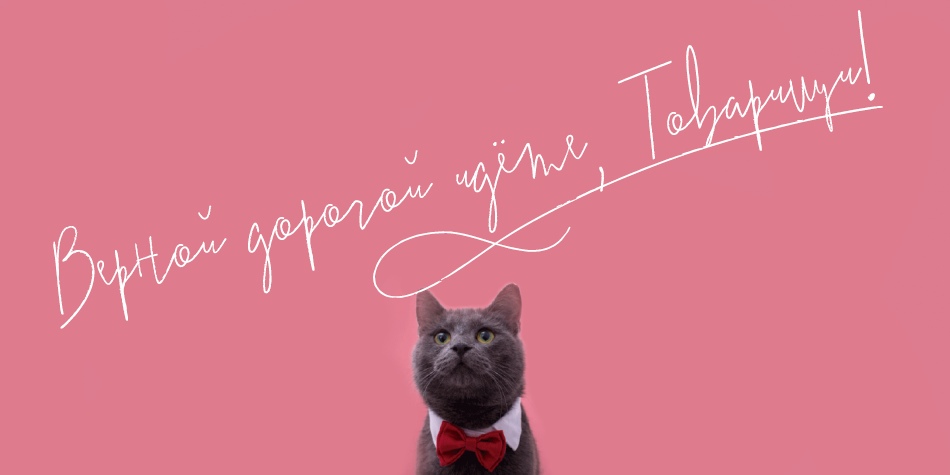
Bow Tie Font
Bow Tie Font is perfect for formal event invitations, gentleman's club branding, upscale restaurant menus, luxury menswear marketing, sophisticated wedding stationery, premium barber shop signage, black-tie event materials, classic cocktail bar branding, and distinguished lifestyle campaigns.
What makes Bow Tie Font exciting is its impeccable embodiment of classic gentleman's sophistication that instantly evokes the refined elegance of formal occasions and timeless masculine style. The font features carefully crafted letterforms with distinguished proportions that reflect the attention to detail found in traditional menswear and formal attire. Its sophisticated character and polished appearance make it perfect for brands that want to communicate class, refinement, and the distinguished appeal of classic gentlemen's fashion while creating memorable experiences that celebrate traditional elegance and formal sophistication.
Bow Tie Font family includes various elegant weights such as Light, Regular, Medium, and Bold variations, often featuring formal stylistic alternates and gentleman-inspired decorative elements. The family may include classic ornamental features, formal symbols, and traditional ligatures that enhance the font's distinguished aesthetic, providing designers with comprehensive options for creating sophisticated typographic compositions that honor classic masculine elegance.